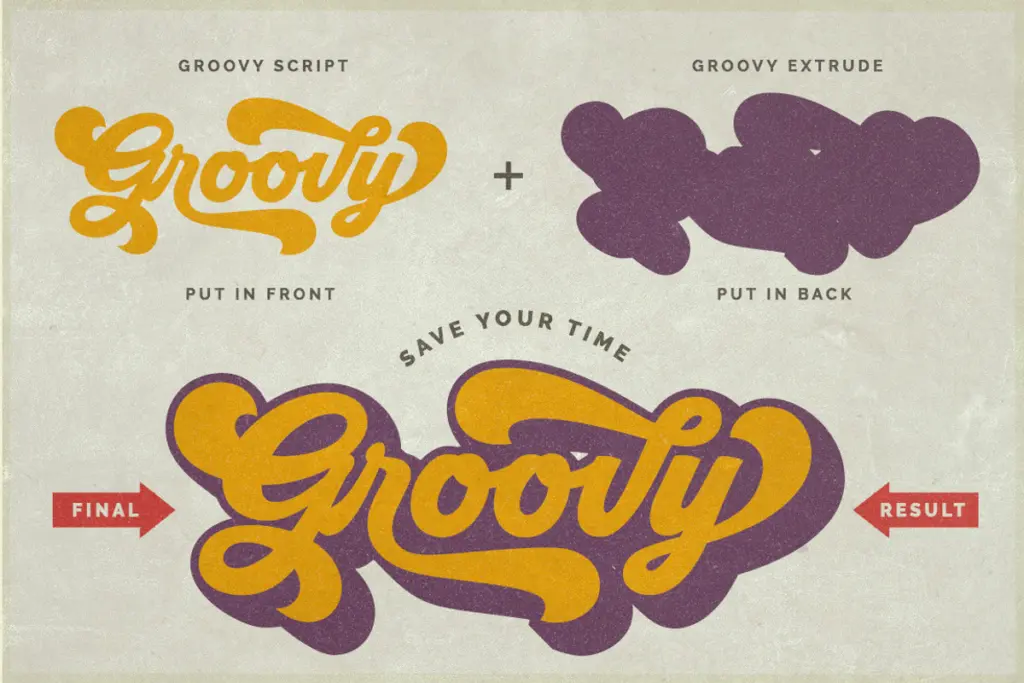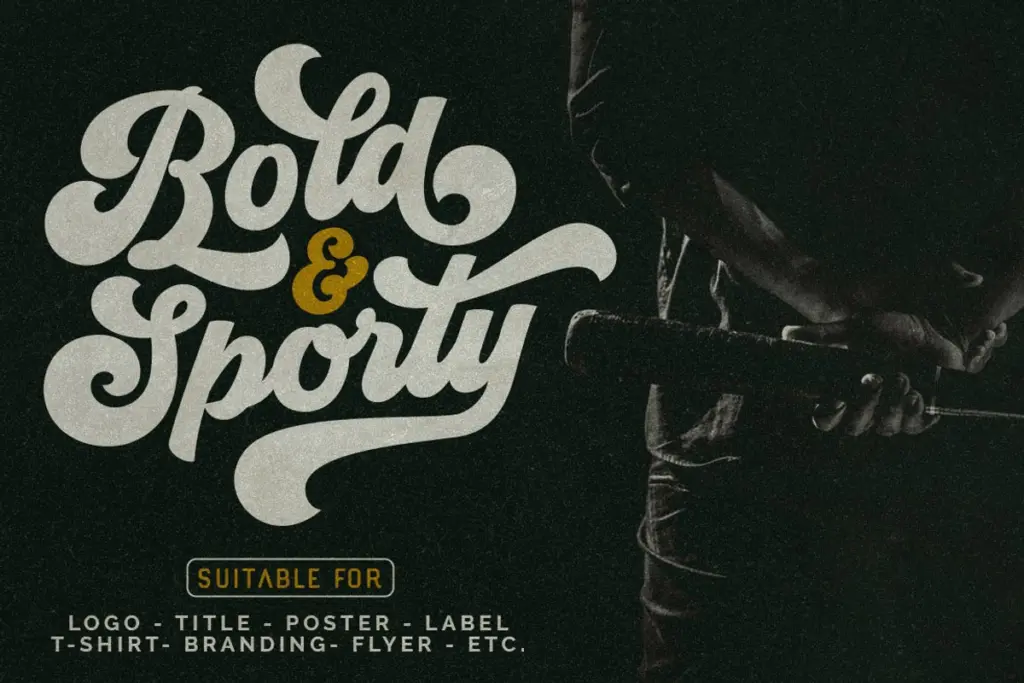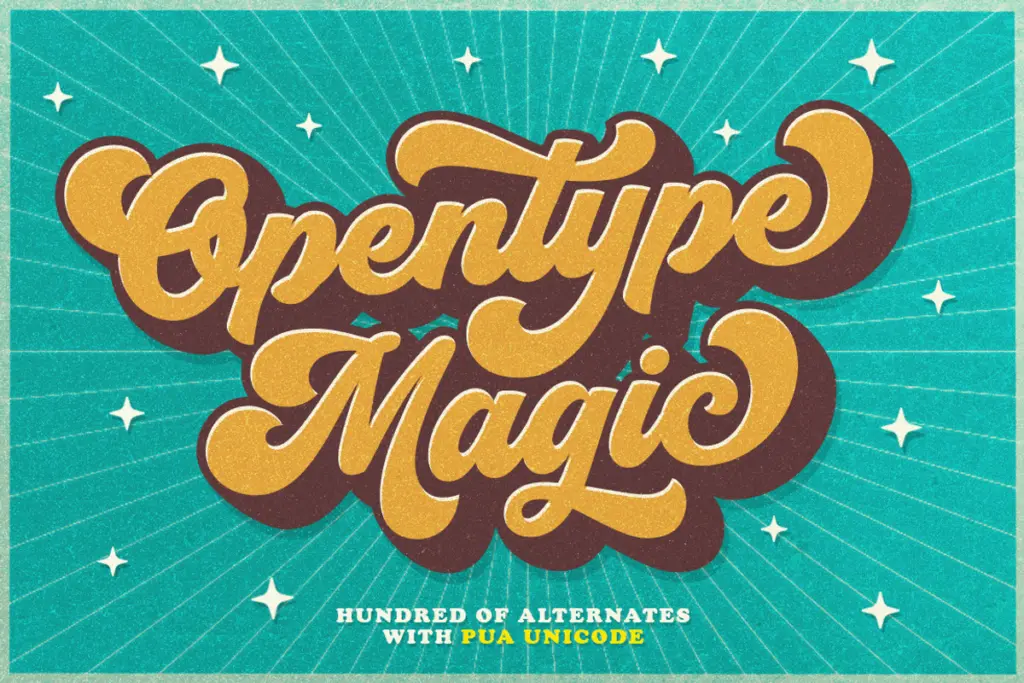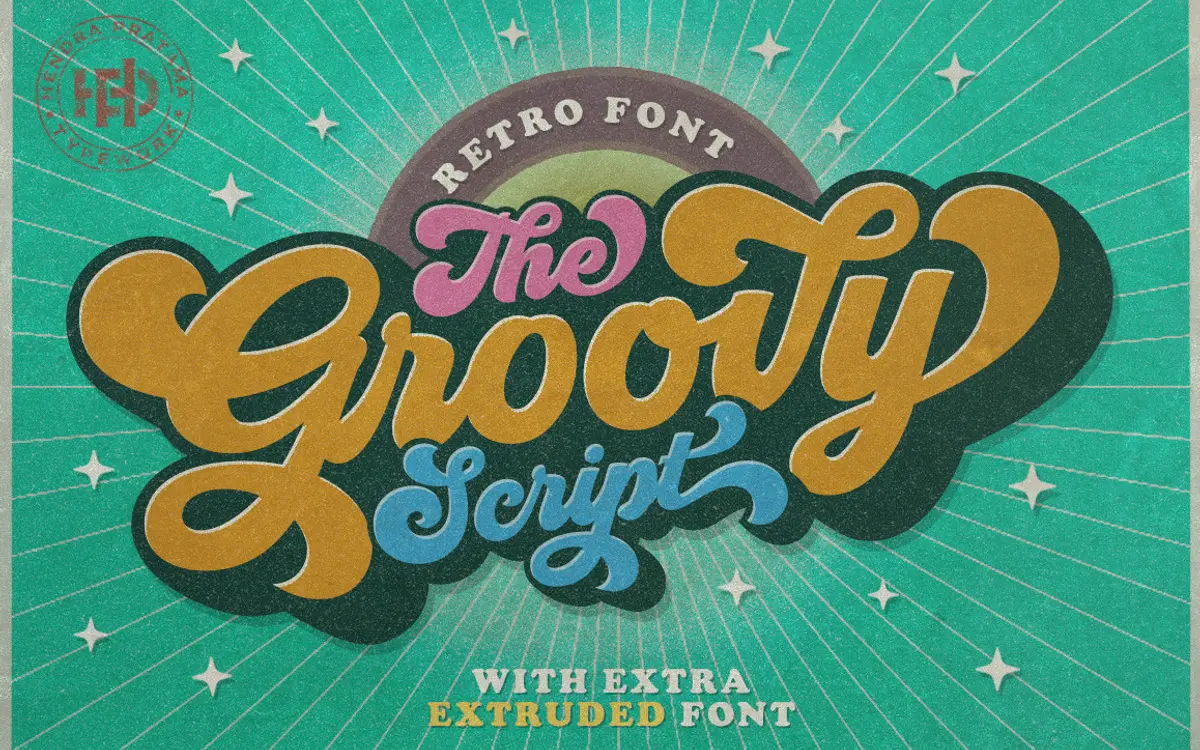
Groovy is a thick, rounded script that leans hard into the bubble-letter energy of late-60s and 70s lettering. The strokes are heavy and consistent in weight, with a bouncy baseline and connections that swing rather than sit flat. It reads as hand-drawn first, typeface second — you can see the lettering project it grew out of in the way letters lean into each other and the joins feel loose rather than mechanically spaced.
The companion Extrude version gives the same letterforms a stacked, three-dimensional block behind them, which is the more overtly retro of the two. On its own, the base script is warm and a bit playful; add the extrude layer and it starts to look like something off a 1972 concert poster or a soda label. That’s the whole trick of this release — you get the flat version and the effect version without having to fake the depth yourself in Photoshop.
The set is large — 593 glyphs — and most of that bulk comes from alternates rather than extended language coverage. Groovy carries OpenType features including stylistic alternates, swashes, ligatures, contextual substitution and stylistic sets, with up to 21 variants available per letter in supporting apps. That’s a genuinely deep alternate system for a script at this price point, and it means two headlines set in Groovy don’t have to look identical if you take the time to swap letterforms manually.
The catch is that none of this happens automatically in software without proper OpenType feature support — you’ll need an app that exposes glyph panels or stylistic sets, and some patience clicking through variants, particularly if you want the extrude layer to align with a hand-picked alternate underneath. Basic Latin support is what you’d expect from this kind of display script; don’t reach for it if you need extended diacritics or non-Latin scripts.
Groovy is built for short bursts of text: logotypes, badge lockups, packaging headers, gig posters, anything trying to summon a specific decade rather than communicate at length. The bold, chunky strokes hold up fine at large display sizes and on merch — T-shirts, tote bags, vinyl-adjacent branding — where a script needs to read from a few feet away rather than up close on a page.
It’s not a body-copy font and shouldn’t be asked to be one; set below display size the joins get muddy and the bounce that reads as charming at 80pt turns illegible at 12pt. Where it earns its keep is in single words or short phrases doing the heavy lifting on a can, a poster, or a logo — situations where the retro voice matters more than reading speed, and where the extrude companion can do double duty as a secondary layer without extra production work.
- Deep alternate system with up to 21 variants per letter for real letterform variation
- Extrude companion version saves the manual work of faking a 3D retro effect
- Consistent, confident bubble-script style that reads as genuinely 70s rather than generic retro
- Legibility drops fast below display sizes, limiting it to short headlines and single words
- Alternate system requires OpenType-aware software and manual glyph swapping to get full value
Groovy delivers a genuinely period-accurate bubble script with a well-built alternate system and a handy extrude companion. It's a display-only tool built for short, punchy retro branding work, not for anything that needs to be read at length.